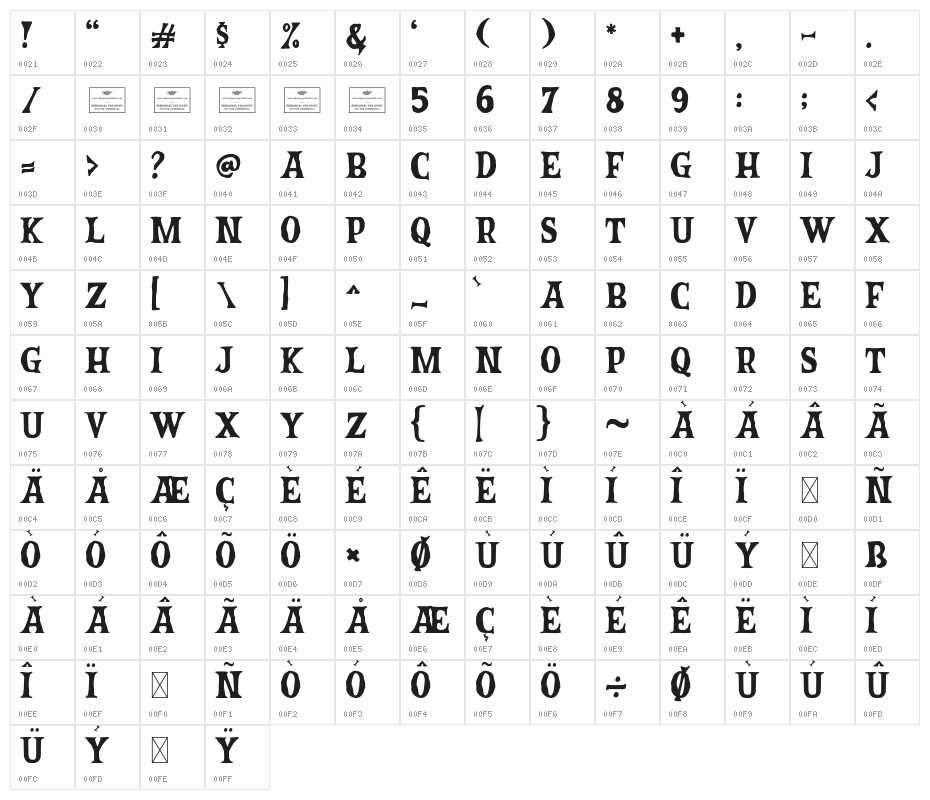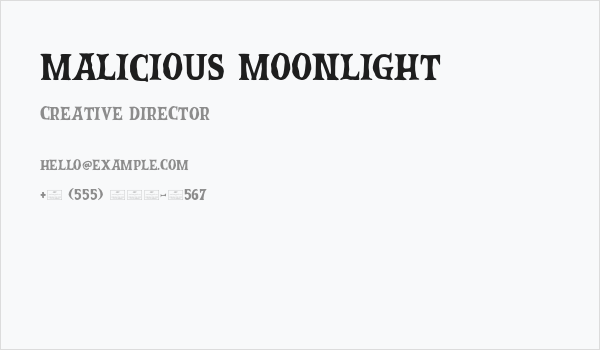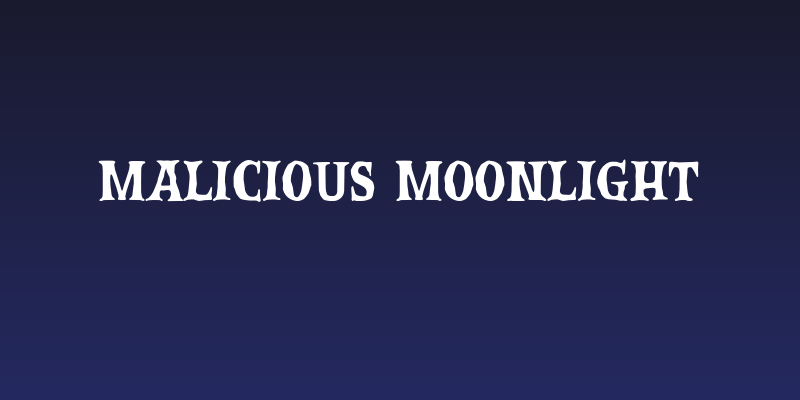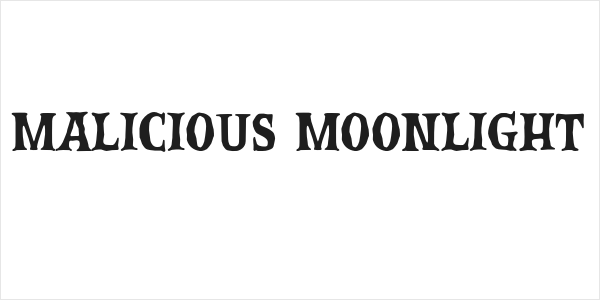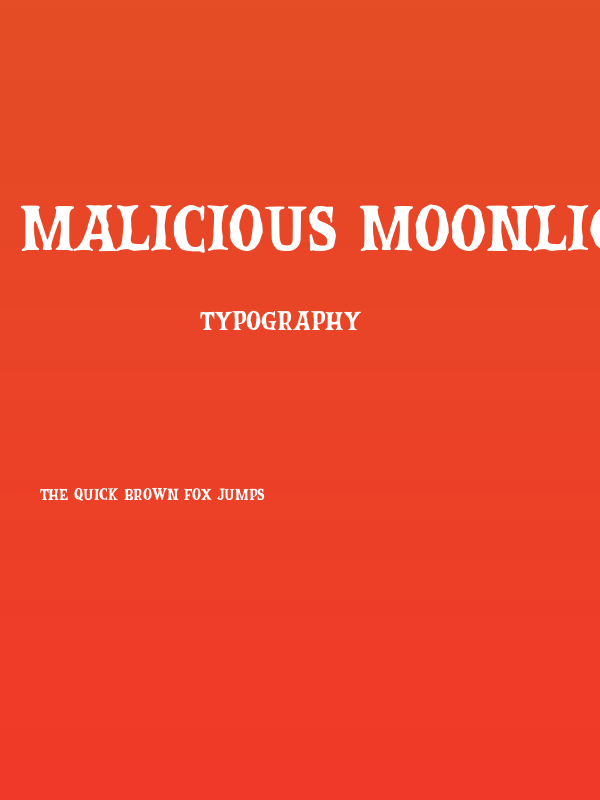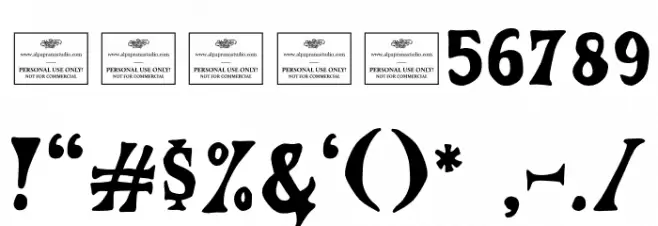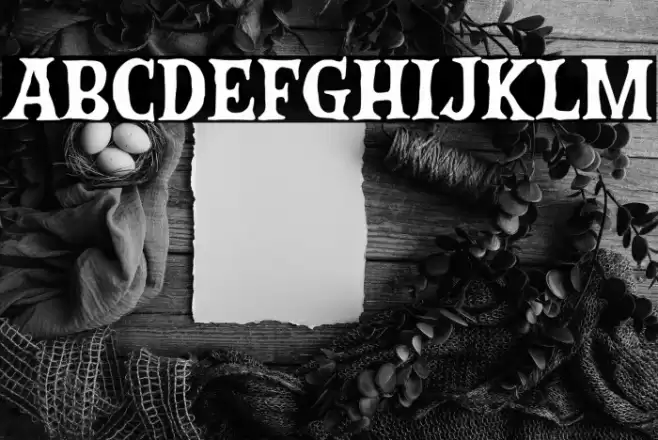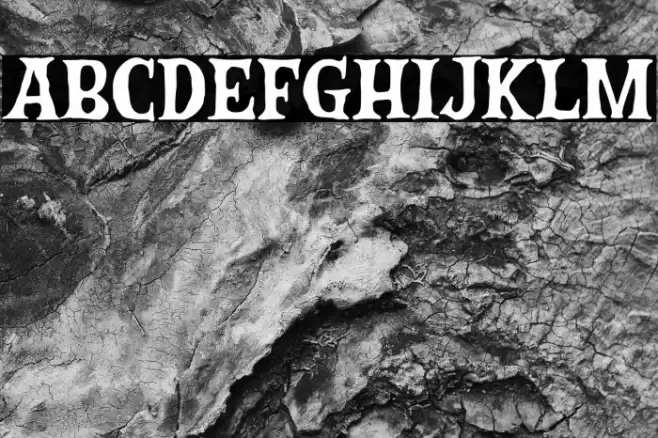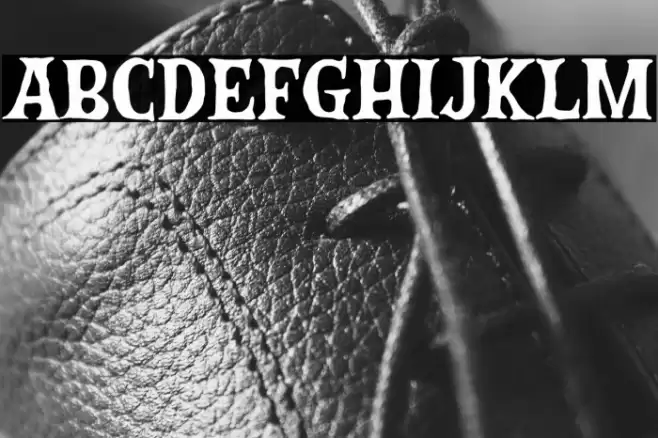
Malicious Moonlight Font
Malicious Moonlight Description
This font features a bold and dramatic style with a distinct vintage flair. The characters are designed with thick strokes and sharp serifs, giving them a strong presence. The uppercase letters are particularly striking, with a slightly condensed form that enhances their impact. The lowercase letters maintain the same boldness, ensuring consistency across the typeface. Numbers and special characters are equally bold, making them suitable for attention-grabbing designs. The overall aesthetic is reminiscent of old western or circus posters, making it ideal for projects that require a touch of nostalgia or theatricality.
| Proposed Projects | Ideal for vintage-themed posters, theatrical event flyers, or branding that requires a bold, nostalgic touch. |